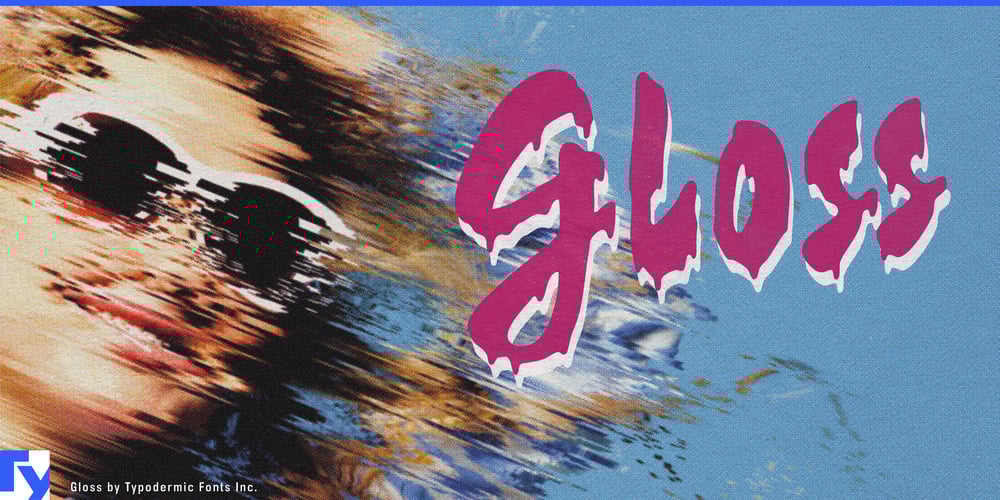
Gloss Font Family was designed by Ray Larabie and published by Typodermic. Gloss contains 1 styles and family package options. Get ready to set the typographic world on fire with Gloss—a font that doesn’t just break the rules, it spray-paints them neon and hangs them in a gallery. This is a rebellious love child of ’50s metal and ’80s punk, raised on a steady diet of attitude and hairspray.Gloss takes the classic Champion script and drags it kicking and screaming through a time warp, emerging as a trashy-chic masterpiece that would make Vivienne Westwood proud. It’s not just a font; it’s a fashion statement, a middle finger to conformity, and a love letter to the misfits all rolled into one. But hold onto your safety pins because Gloss is packing more surprises than a punk rock concert. Thanks to OpenType ligatures, each paint drip is as unique as a punk rock hairdo at a corporate board meeting. It’s like every letter decided to go on a wild night out and came back with a different story to tell. Set it on an incline, and watch as the slightly skewed letters strut up and drip down your page like they’re walking a runway in combat boots.Gloss doesn’t just cross linguistic borders—it stage-dives over them. Supporting a vast array of Latin-based European writing systems, this font ensures your rebellious message maintains its edge whether you’re sneering in Swedish or causing a ruckus in Romanian. It’s a linguistic tour de force that would leave even Sid Vicious impressed. Choose Gloss when you need typography that doesn’t just speak—it screams, shouts, and possibly starts a mosh pit. It’s perfect for designs that aim to capture the raw energy of a DIY concert poster mixed with the glossy allure of a high-fashion magazine. Let Gloss be the voice of your most audacious ideas, transforming ordinary text into a typographic statement that demands attention and refuses to apologize.In a world of vanilla sans-serifs and buttoned-up serifs, Gloss stands tall as a beacon of unrestrained creativity. Get Gloss now and inject some serious attitude into your next project.